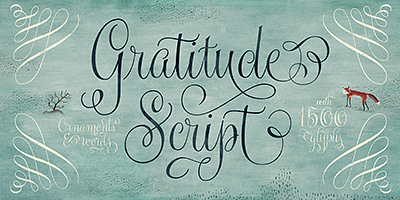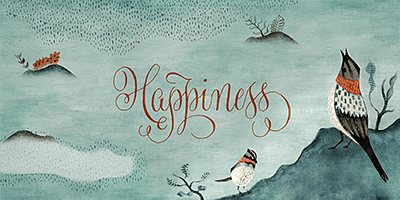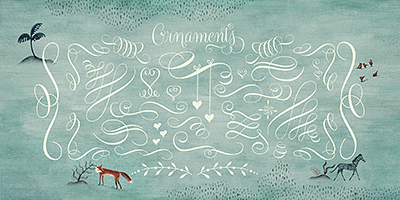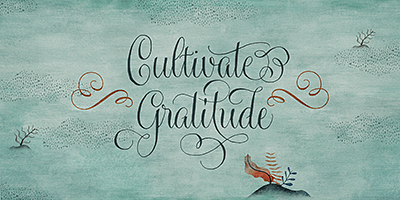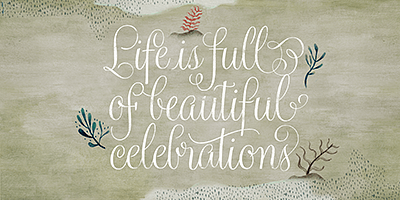
In this high-tech, fast paced world of strict, unbending rules, we give you Gratitude Script: A celebratory font that’s deeply rooted in tradition letterforms but with a modern, updated twist; a casual, whimsical, fun look that is also elegant and versatile!